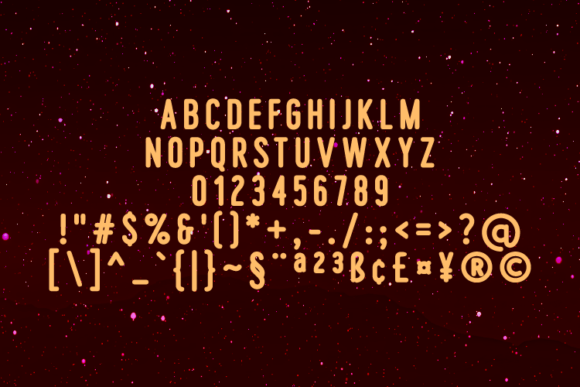
Cynzia Black Font: A Condensed Geometric Sans Serif with a Lunar Twist
In the realm of typography, fonts play a pivotal role in shaping the visual identity of a design. Among the myriad of typefaces available, Cynzia Black Font stands out for its unique blend of geometric precision and gentle curves. This article delves into the characteristics, design inspiration, and potential applications of Cynzia, a condensed geometric sans serif that is as versatile as it is visually appealing.
The Genesis of Cynzia: A Blend of Geometry and Softness
Cynzia’s design is rooted in the geometric sans serif tradition, but with a distinctive twist. It incorporates circular forms at the tops and bottoms of characters, reminiscent of the soft, rounded shapes of a moon. This blend of geometric precision with rounded corners gives Cynzia a unique personality that sets it apart from more traditional sans serifs. The typeface’s proportions have been carefully condensed, not merely by stretching or compressing existing forms, but through a thoughtful redesign that incorporates straight sides. This approach ensures that Cynzia maintains a sturdy appearance while still offering an economical design solution.
Design Characteristics: A Balance of Sturdiness and Elegance
Cynzia’s design strikes a delicate balance between sturdiness and elegance. Its condensed form makes it particularly suitable for applications where space is limited, without sacrificing readability or aesthetic appeal. The straight sides of the characters contribute to its sturdiness, making it robust and dependable for a wide range of design projects. Meanwhile, the rounded corners and circular influences introduce a subtle softness, lending Cynzia a friendly and approachable feel. This duality allows Cynzia to deliver both a sharper appearance, when required, and a more subtle, understated look, making it incredibly versatile.
Applications of Cynzia Black Font: Versatility Across Design Disciplines
The versatility of Cynzia Black Font makes it an excellent choice for various design applications. In branding and advertising, its unique blend of geometric and rounded elements can help a brand stand out, offering a distinctive voice that communicates both modernity and approachability. For web design, Cynzia’s condensed form and clear readability make it an excellent choice for digital interfaces, where space efficiency and legibility are paramount. Additionally, its elegant yet sturdy appearance makes it suitable for print design, from brochures and posters to business cards and letterheads.
Cynzia in the World of Crafting and DIY Projects
Beyond professional design applications, Cynzia Black Font also finds a place in the world of crafting and DIY projects. Crafters and hobbyists can utilize Cynzia for a variety of personal projects, such as custom signage, party decorations, and handmade cards. The font’s friendly appearance and flexibility make it ideal for projects that require a personal touch, allowing crafters to add a professional flair to their creations.
Conclusion: The Enduring Appeal of Cynzia Black Font
Cynzia Black Font represents a harmonious marriage of form and function, combining geometric precision with a soft, lunar-inspired aesthetic. Its design characteristics—condensed form, straight sides, and rounded corners—make it a versatile tool for designers and crafters alike. Whether used in professional design projects or personal crafting endeavors, Cynzia offers a unique blend of sturdiness and elegance, capable of elevating a wide range of visual communications. As typography continues to evolve, fonts like Cynzia remind us of the power of thoughtful design, where even the smallest details can have a significant impact on the overall aesthetic and effectiveness of a design.